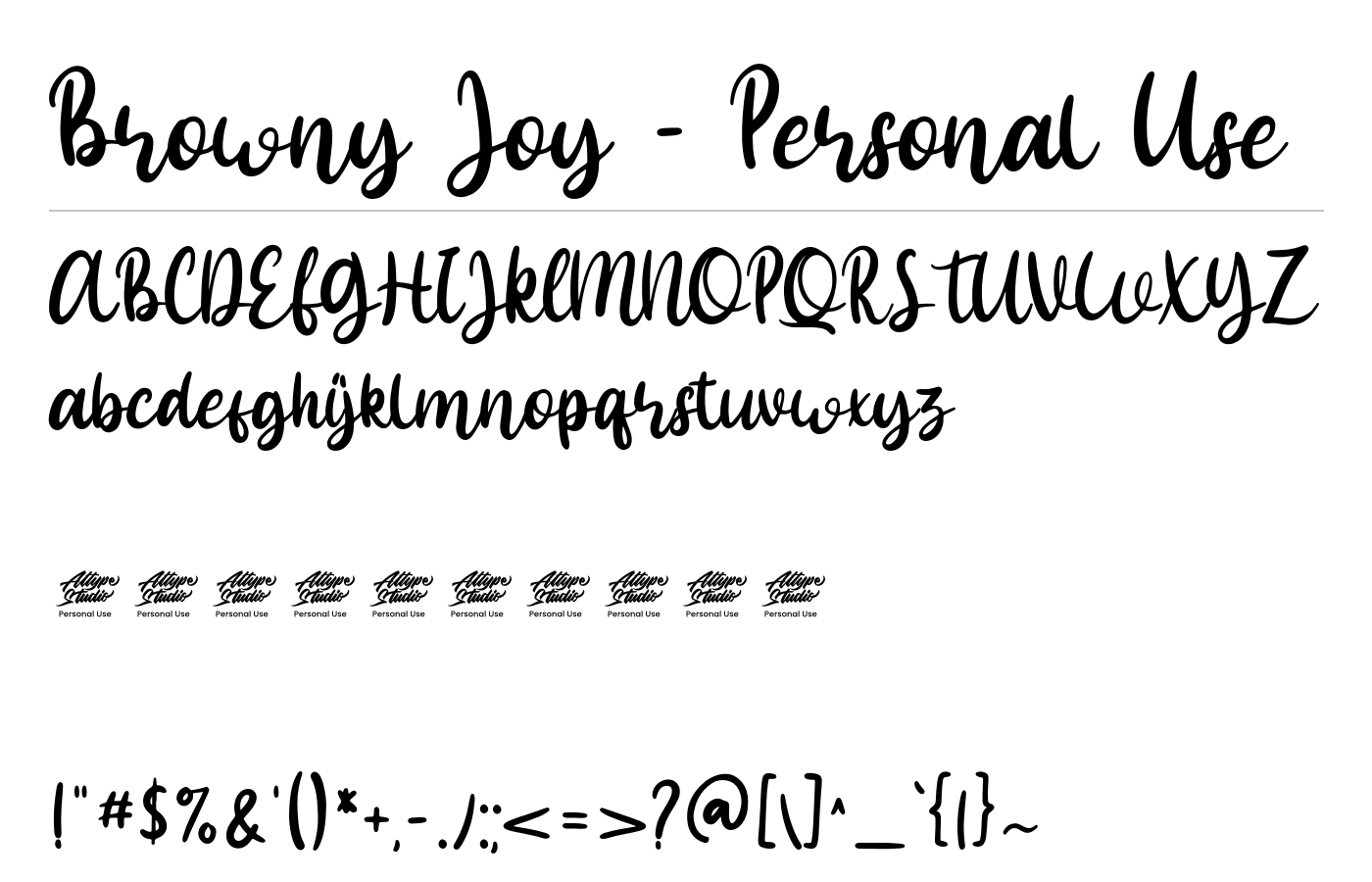
Browny Joy is a playful, handwritten script font featuring smooth, rounded strokes and a casual, friendly style. Its moderate weight and tall x-height make it highly legible while maintaining a personal, approachable feel, perfect for adding warmth and charm. Ideal for branding, invitations, and creative projects, it brings a joyful, informal vibe that suits lifestyle and craft-focused designs.
Browny Joy - Personal Use Font
About Browny Joy - Personal Use Font
| Font family | Browny Joy - Personal Use Font |
| Designer | Fadli Ramadhan Iskandar |